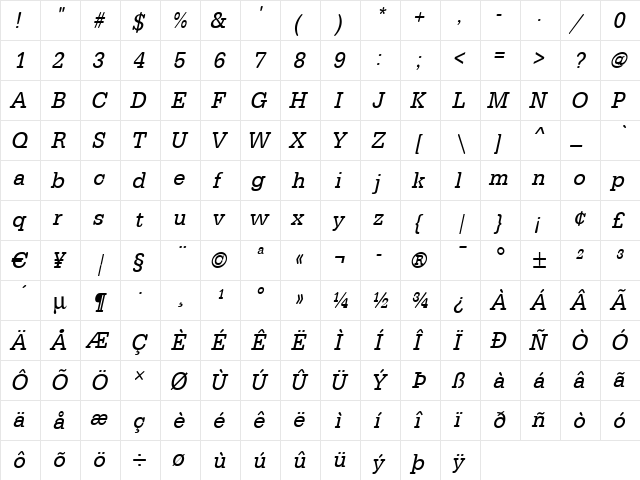
AstridBeckerNarrow Italic Font Preview
Design Context for AstridBeckerNarrow Typeface
AstridBeckerNarrow is a composed and adaptable typeface that performs quietly and consistently across a wide range of design contexts. The dynamic lean of this cut emphasises speed and emphasis in any layout. The condensed width makes it efficient for tight spaces without sacrificing legibility.
Pro Tip: Try AstridBeckerNarrow for annotation and caption copy alongside an upright companion — the contrast in angle creates a dynamic but ordered typographic system.